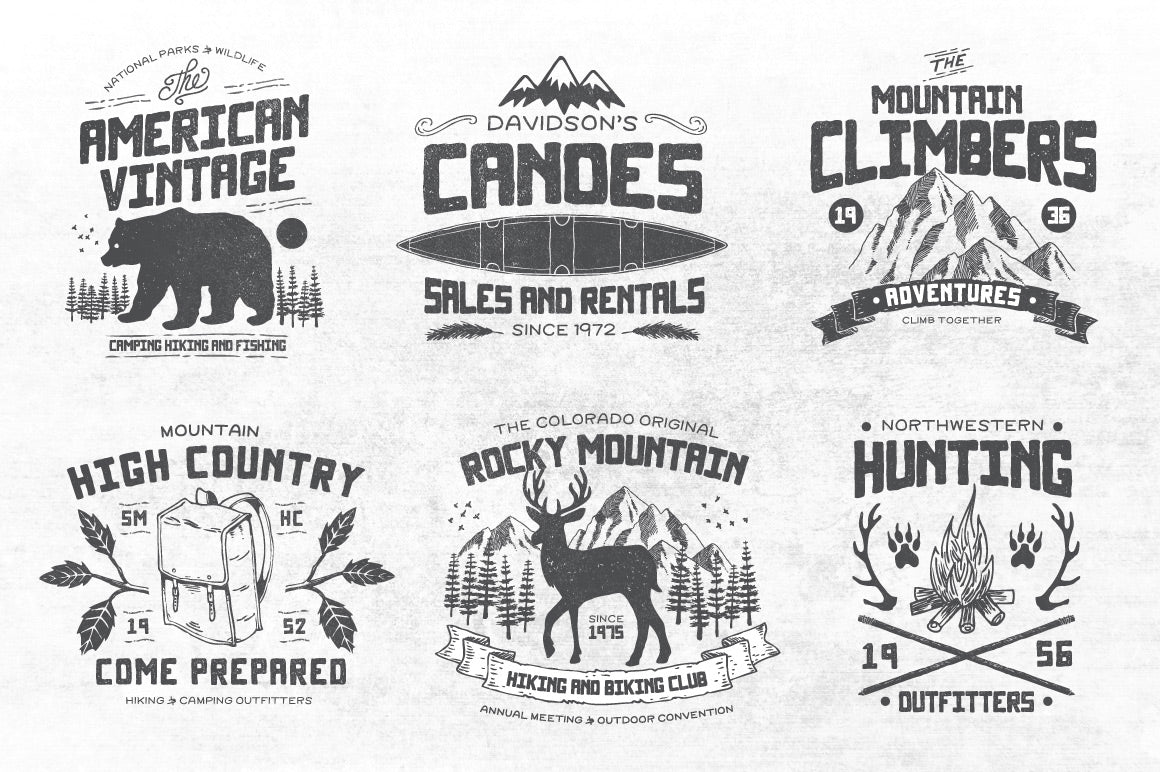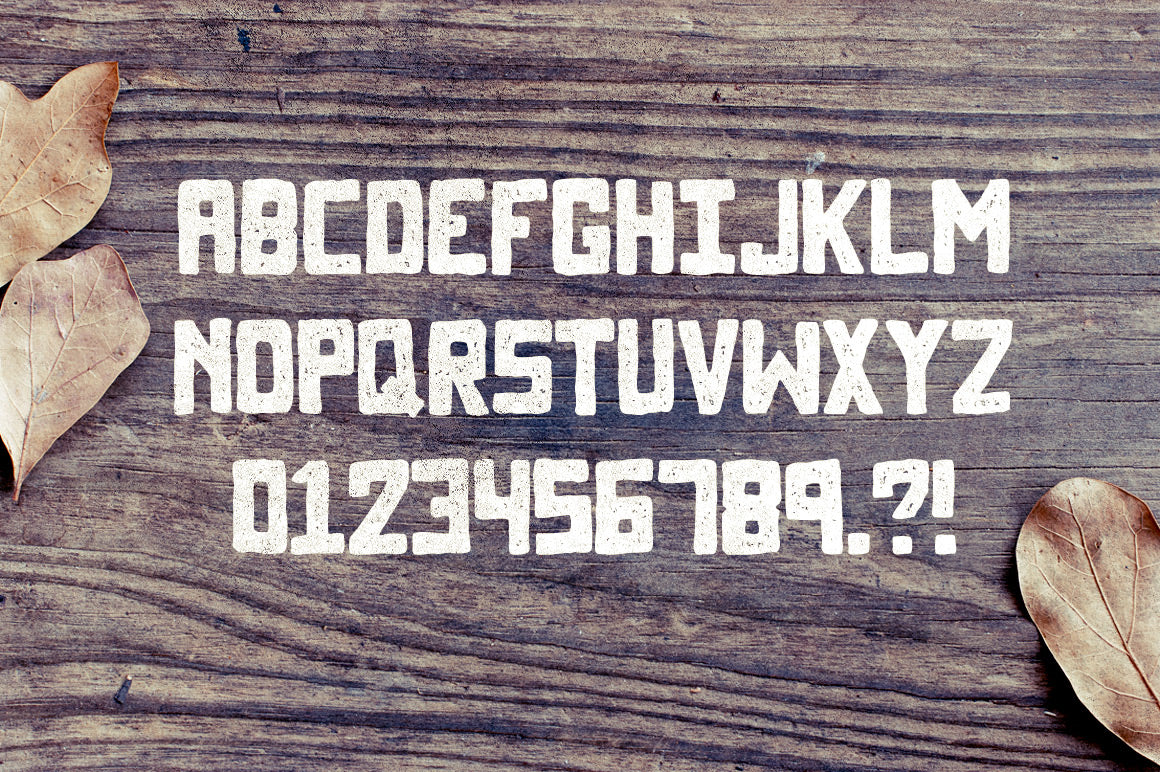
North Western Font + Vectors Vol 1
This set has been rattling around in my head for several months. A collection of fonts and vector graphics inspired by the northwestern region of America. It just doesn’t get any better. Once I sat down and started sketching the set became so big that I’m splitting it into 3 volumes. This first set features a hand drawn slab style font, over 50 vector graphics, 6 vintage badges, textures, brushes and more!
- 2 Hand drawn fonts
- 50+ Hand drawn vector graphics
- 6 Vintage style vector badges